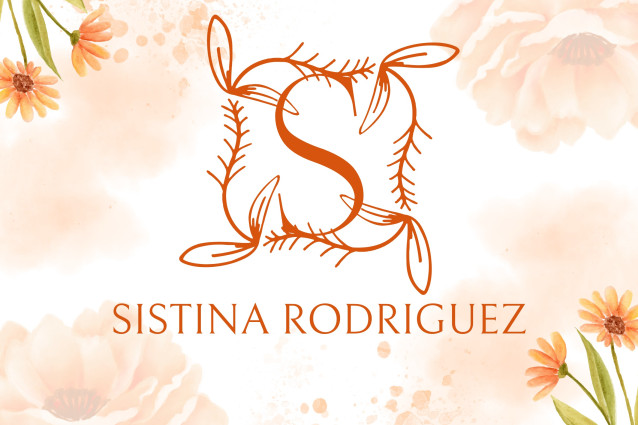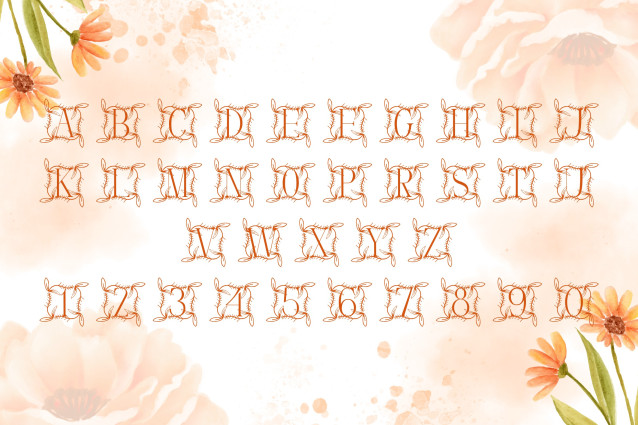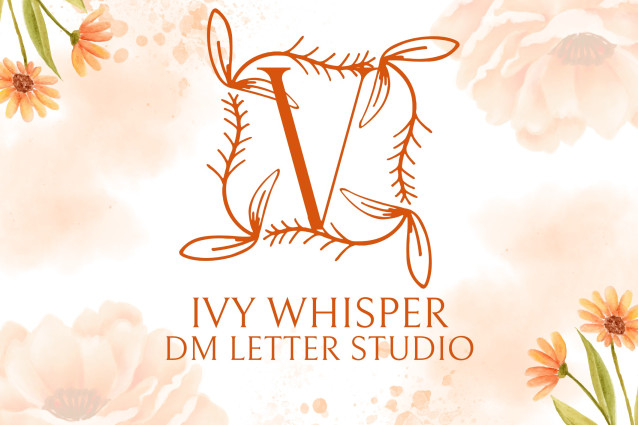
Ivy Whisper Monogram Font
Ivy Whisper Monogram is a refined serif monogram font inspired by the quiet beauty of trailing ivy and romantic garden aesthetics. Each uppercase letter features graceful curves and leafy embellishments, making it ideal for elegant branding, wedding stationery, and personalized gifts. Delicate yet structured, this font whispers timeless sophistication into every monogram design.